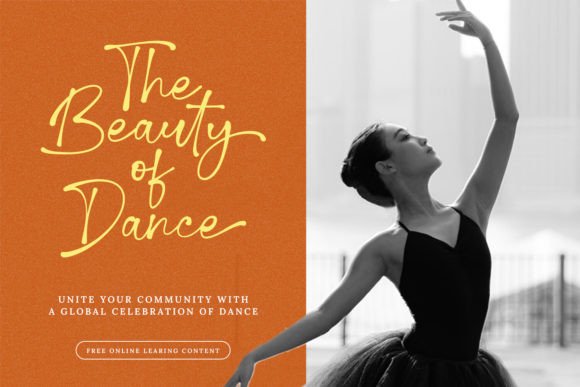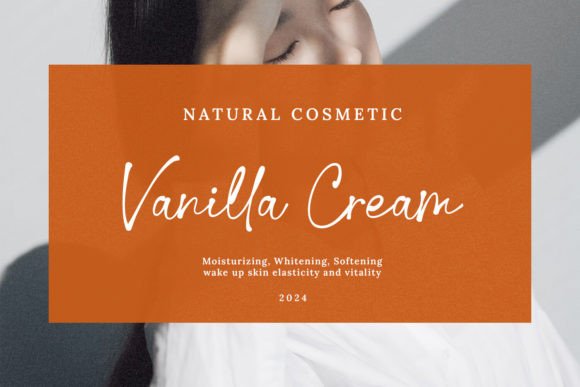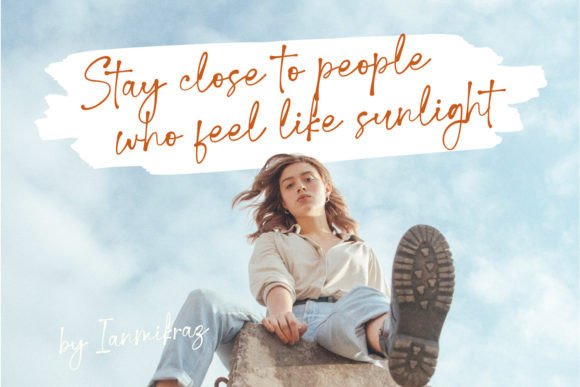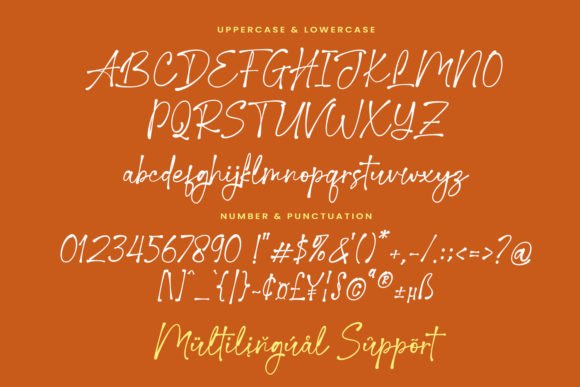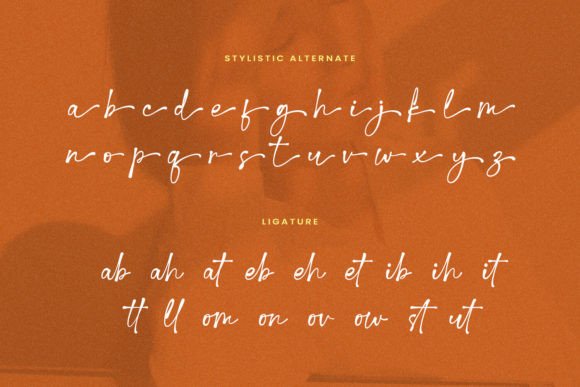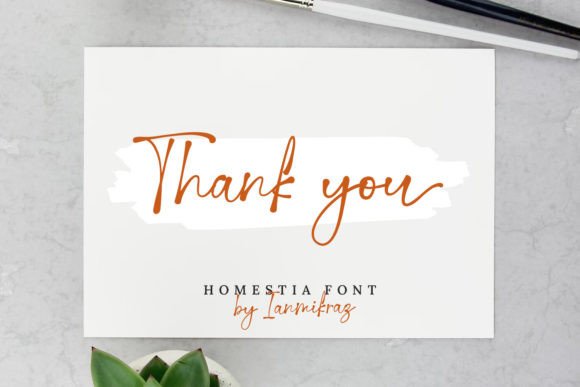
A Touch of Elegance: Elevate Your Designs with Homestia Font
Have you ever been browsing through a beautifully designed wedding invitation, and suddenly, you’re transported to a world of luxury and sophistication? That’s the magic of a well-designed font. As a designer, you know the power of a single font can make or break a project. And that’s where Homestia Font comes in – a sophisticated signature script font that adds a touch of elegance to any design.
With its smooth, flowing lines and graceful curves, Homestia Font is perfect for adding a personal and refined touch to invitations, branding, logos, and social media graphics. Whether you’re a seasoned designer or just starting out, Homestia Font is a valuable tool to have in your arsenal, helping you create designs that exude luxury and professionalism.
- Unique Characteristics: Homestia Font features a unique blend of modern and traditional design elements, including rounded edges, subtle flair, and a distinctive x-height.
- Legibility: The font is designed for optimal legibility, with clear and easy-to-read letterforms that make it perfect for body text, titles, and headings.
Homestia Font Review
Overall, I was pleasantly surprised by the Homestia Font. Here are some of its standout features:
- ✨ Beautifully crafted curves and lines that create a sense of warmth and comfort
- ✨ The font’s subtle irregularities give it a unique, handmade feel that’s perfect for creative projects
- ✨ Excellent legibility, even at small font sizes, making it suitable for body text and titles
- ✨ A wide range of weights and styles to choose from, offering plenty of flexibility for different design needs
However, I did encounter some limitations that might affect your design decisions:
- ⚠️ Limited support for languages that require complex scripts or diacritics, which might limit its use in multilingual projects
- ⚠️ Some of the font’s weights can feel a bit too similar, which might make it harder to create visual hierarchy in your designs
Overall, I think Homestia Font is a solid choice for designers looking for a warm, inviting font with a unique feel. While it may have some limitations, its strengths make it a great addition to any design toolkit.
Tips for Getting the Most Out of Homestia Font
Here are some tips for getting the most out of Homestia Font:
- Use Homestia Font for titles and headings to add a touch of elegance to your designs.
- Pair Homestia Font with other elegant fonts to create a sophisticated look.
Homestia Font is ideal for:
- Business cards and brochures
- Marketing materials and advertising